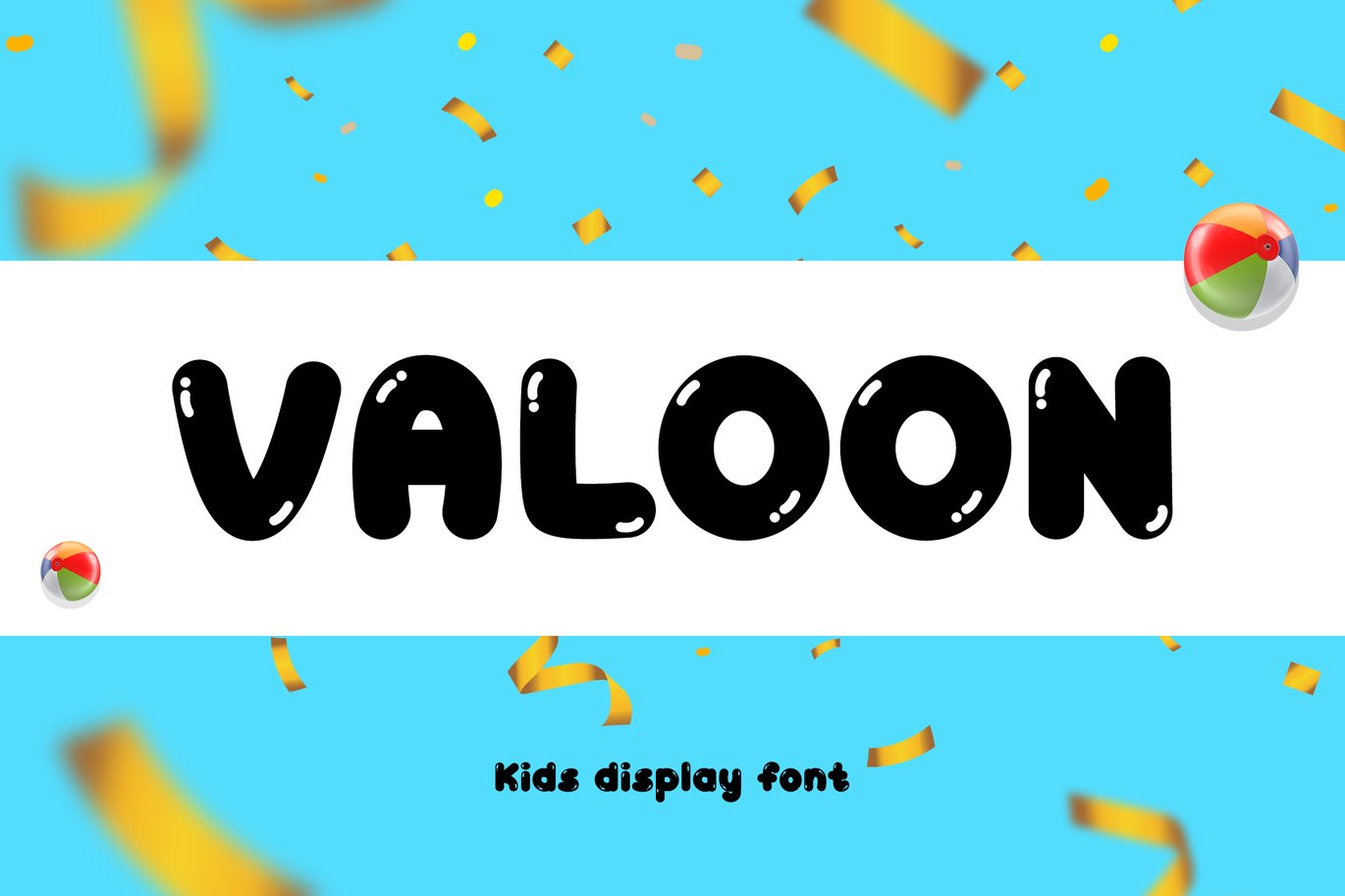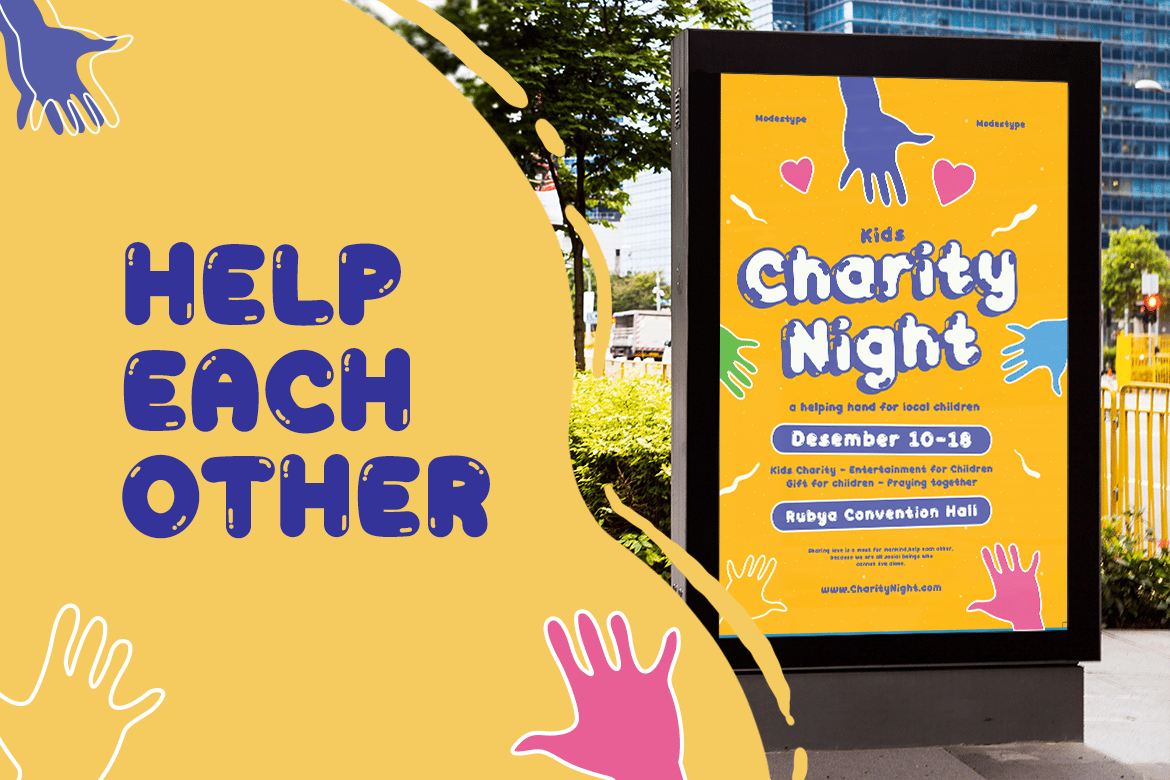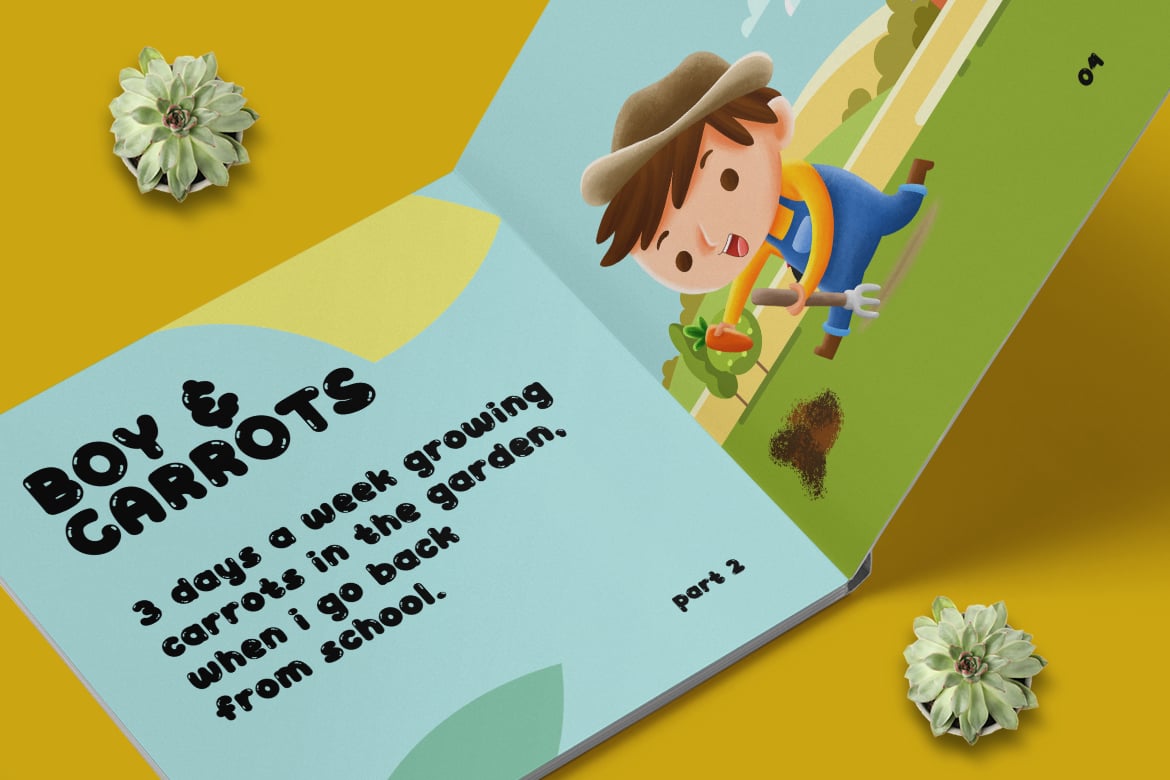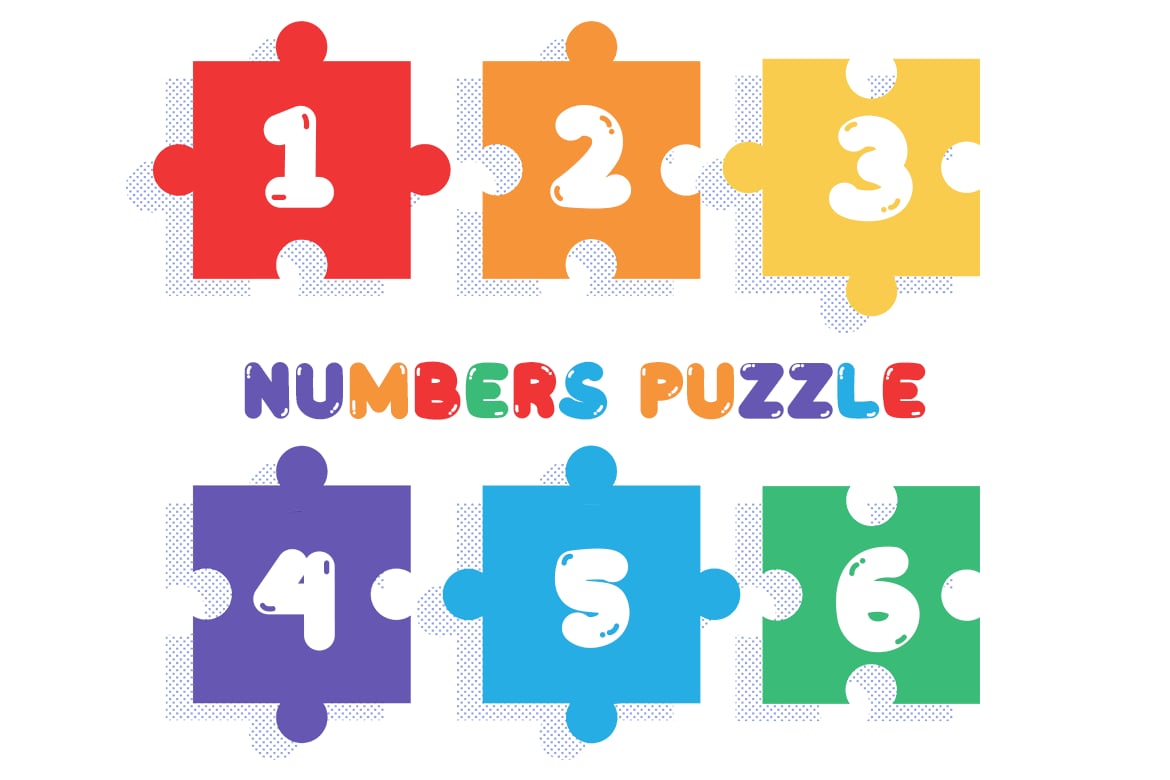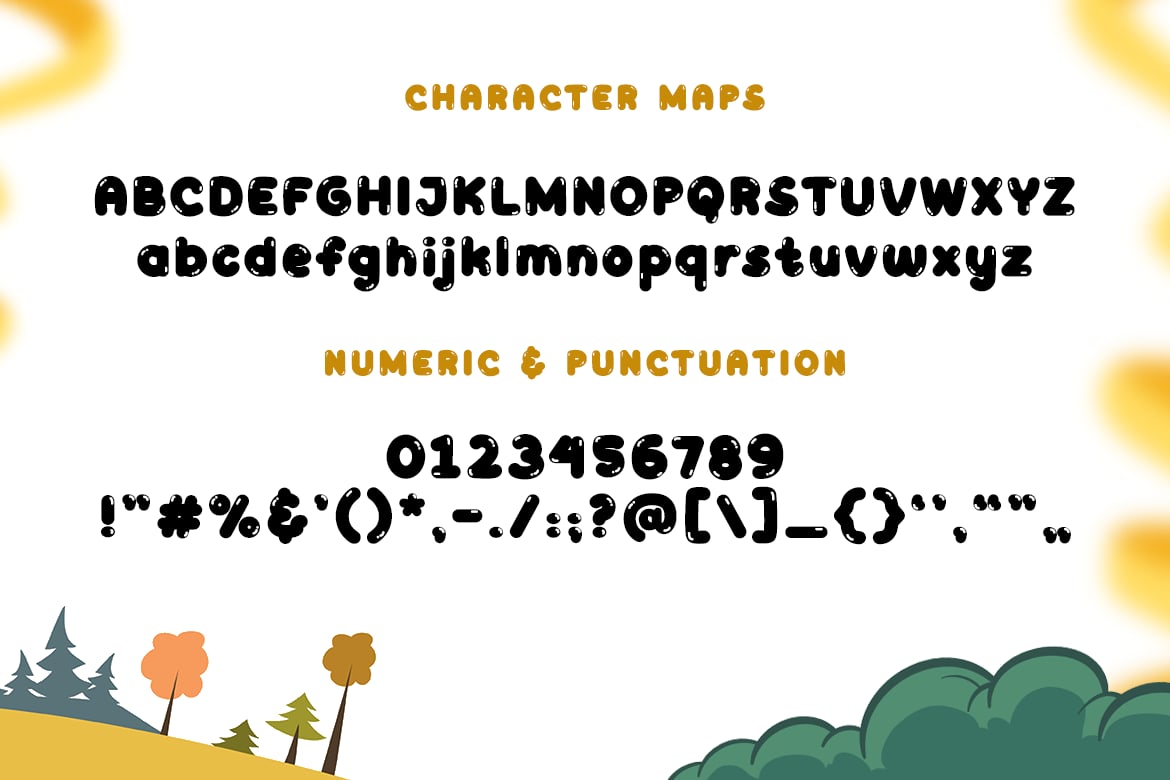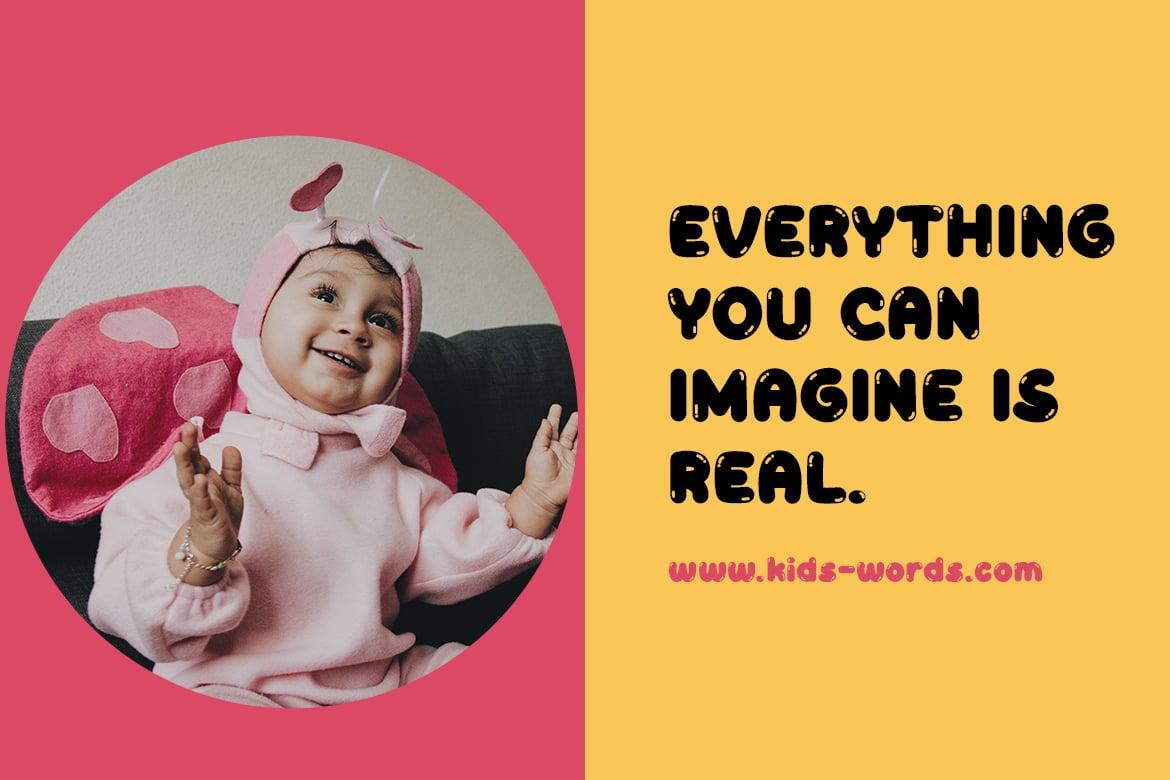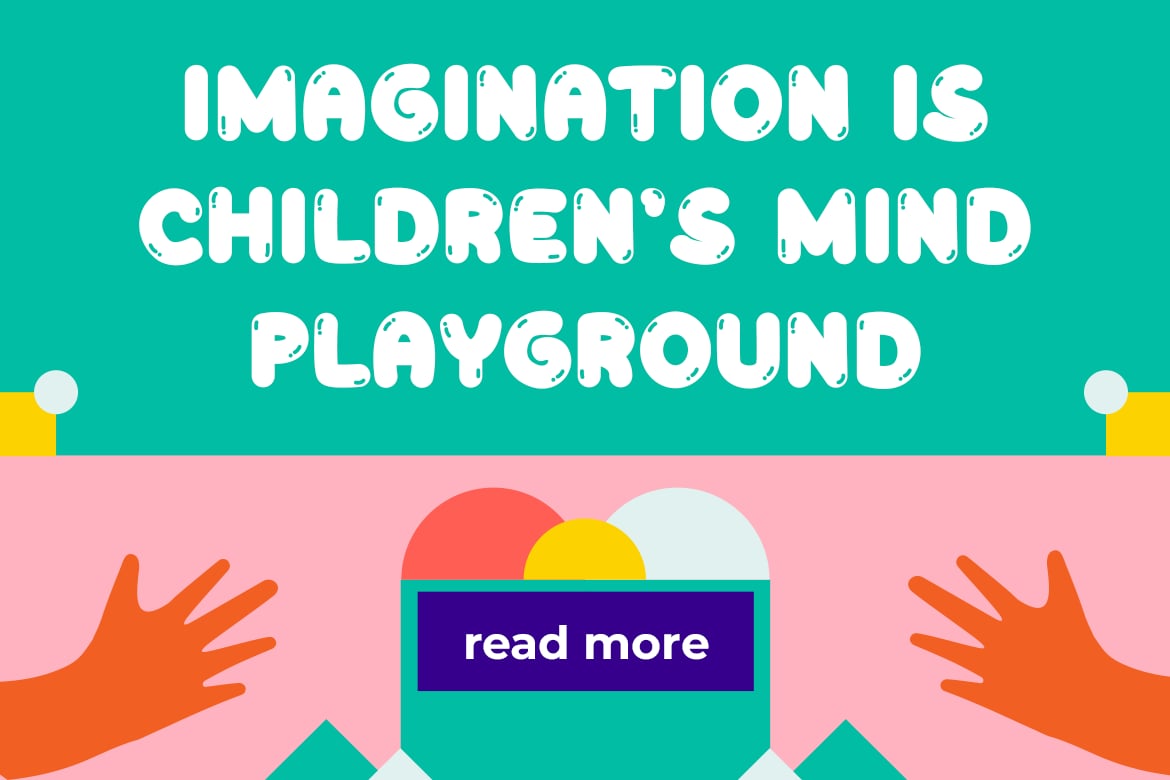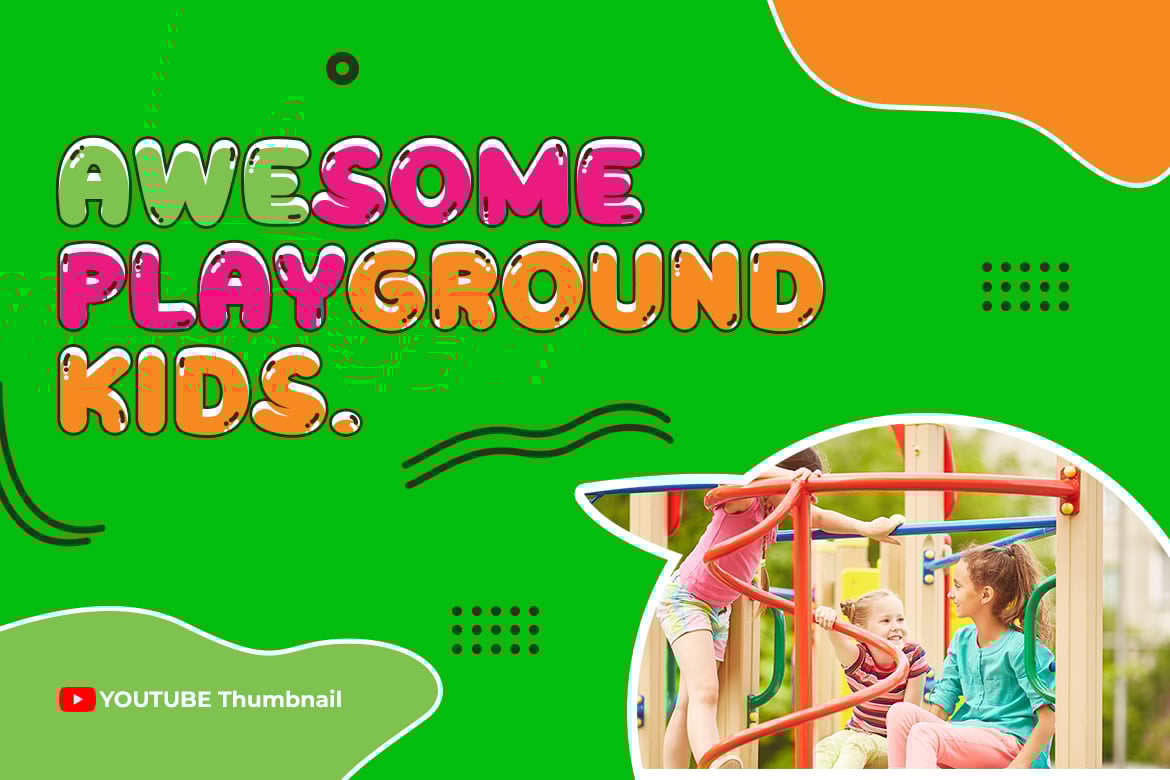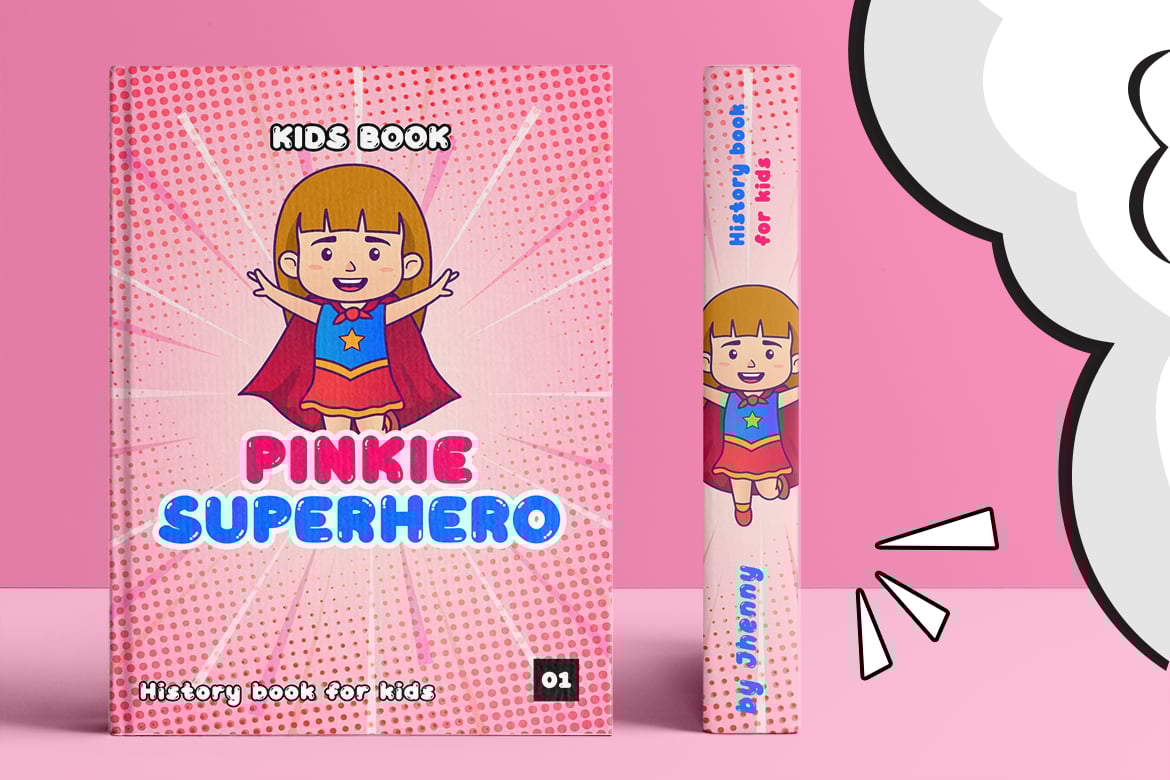
Valoon – Kids Display Font
A cute sans-serif with a bit of glossy style on the corner of its shape, resemblance a puffy balloon that inspire the name.
Valoon comes with fun and joy in mind, that describing the world of children, where they do sees the world in a much brighter side.
Suit perfectly for young age segmented magazine, poster, movie title, music poster, youtube covers, youtube thumbnails, social media page covers and so on…